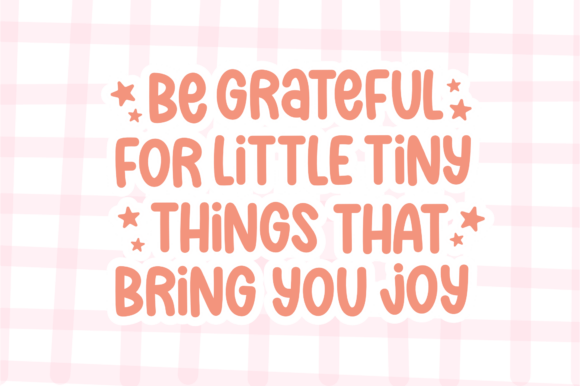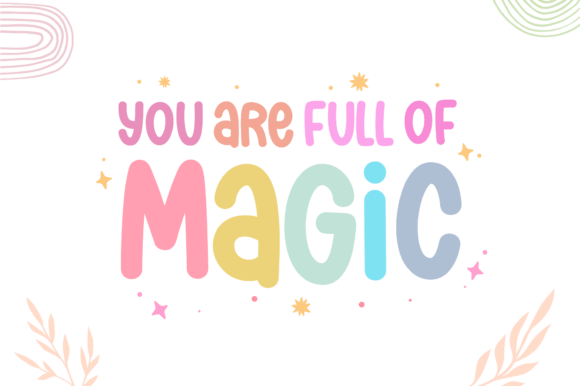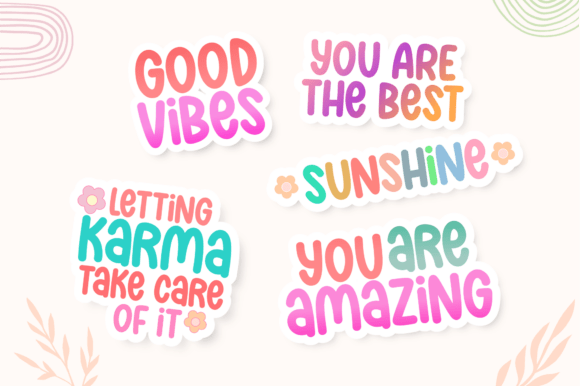
Shine Cakes Font
Shine Cakes is a sweet and playful handwritten font that adds a touch of charm to any design. With its rounded, bubbly letters and friendly feel, this font is perfect for creating eye-catching titles, logos, and branding materials.This adorable handwritten font features a fun, whimsical style that’s perfect for children’s designs, party invitations, and anything that needs a sprinkle of sweetness.